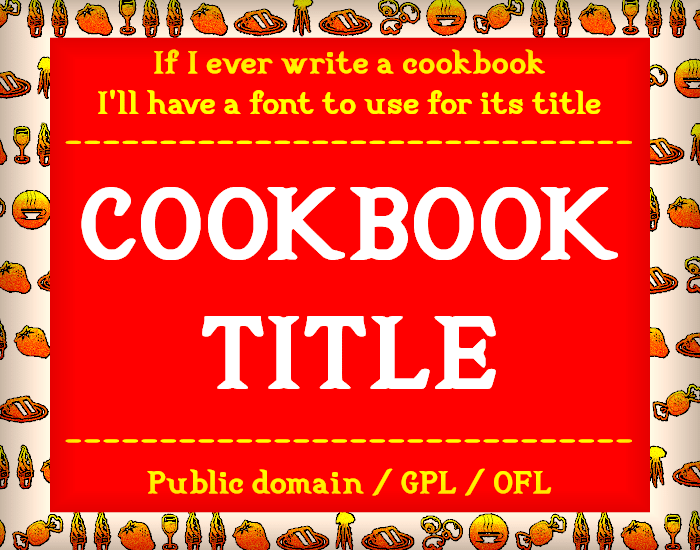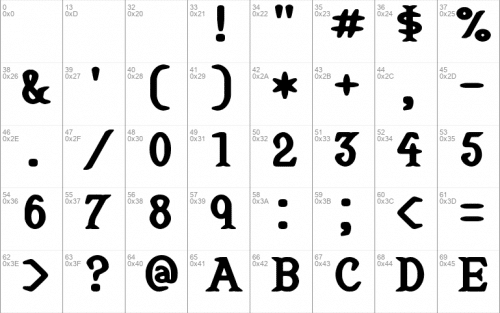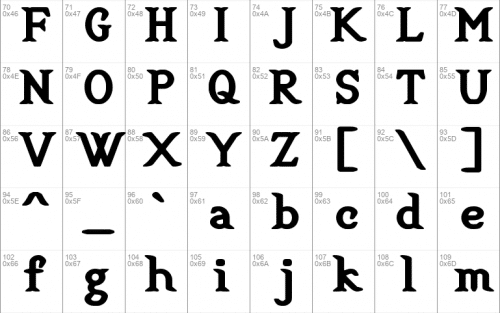
Cookbook Title is a freeware font that I created to be used as the title for my collection of recipes. You can enjoy the font now and maybe someday I’ll publish the recipes.